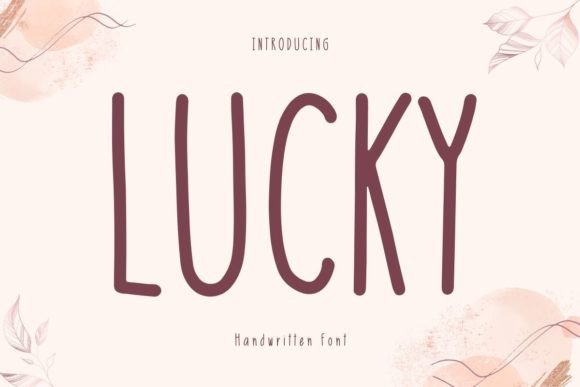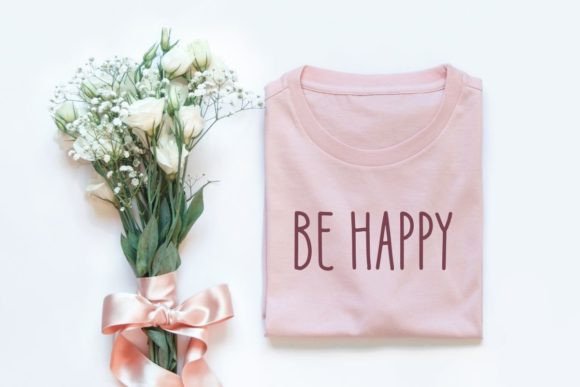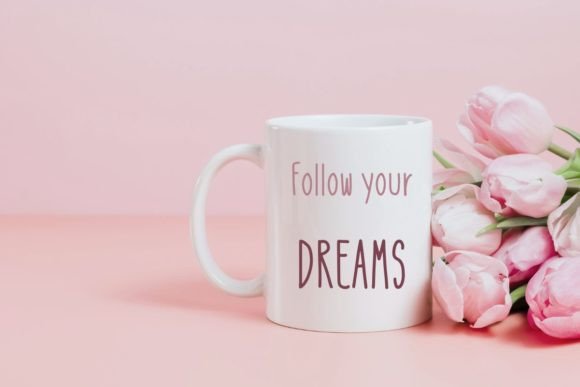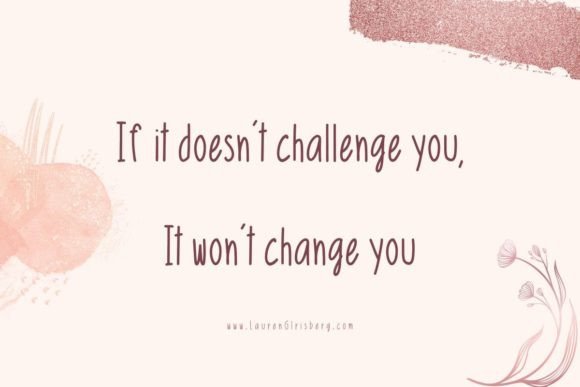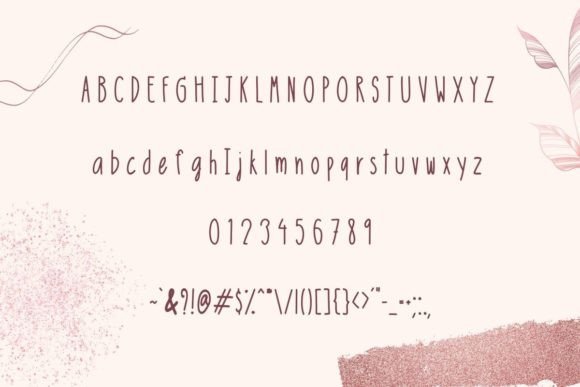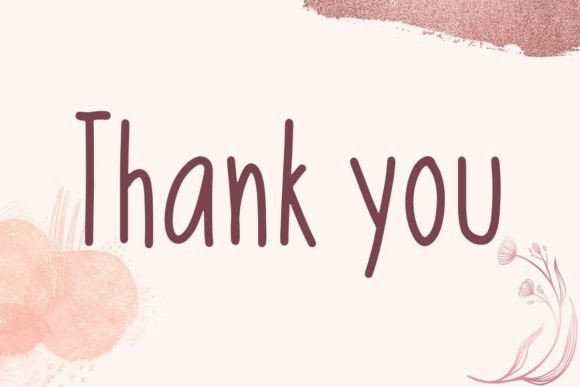
Lucky Font
Lucky Font Download – Casual Handwritten Script
The Lucky Font download is a sweet and cozy handwritten typeface that brings friendliness and charm to any project. With its informal strokes and casual vibe, this font feels approachable while remaining stylish. Whether you are working on apparel designs, mugs, cards, or wall art, Lucky provides a relaxed yet polished handwritten touch.
A Sweet and Informal Handwritten Style
The Lucky Font download features easy, natural curves that make text look casual and inviting. Its smooth flow captures the charm of handwritten notes, creating warmth in every design. This balance of informality and clarity makes it an excellent choice for personal and professional projects.
Perfect for Apparel and Accessories
The Lucky Font download is a fantastic choice for t-shirts, hats, tote bags, and mugs. Its casual handwritten look adds personality to fashion and lifestyle products, making them unique and expressive. Designers can use Lucky to create stylish merchandise that resonates with audiences.
Great for Cards and Creative Prints
From handmade cards to wall art and interior prints, the Lucky Font download adapts beautifully. Its cozy handwritten style conveys emotion and personality, making it ideal for meaningful quotes, decorative posters, and invitations. Whether for home décor or special occasions, this font adds charm to your designs.
Readability with Cozy Charm
While handwritten fonts can sometimes be overly decorative, the Lucky Font download maintains excellent readability. Its neat yet casual style works well for both large titles and smaller details, ensuring that your message is always clear.
Why Choose Lucky Font?
Among the many handwritten fonts available, the LuckyFont download stands out for its sweet, informal design and cozy appeal. It works perfectly for apparel, crafts, cards, and branding, giving your projects a personal handwritten touch that feels genuine.
Add Warmth to Your Projects
Typography defines how your audience perceives your work, and the LuckyFont download adds friendliness and warmth to every design. Whether for merchandise, cards, or home prints, this font ensures your projects look inviting, stylish, and full of charm.